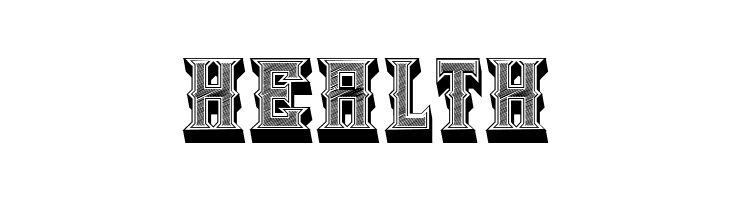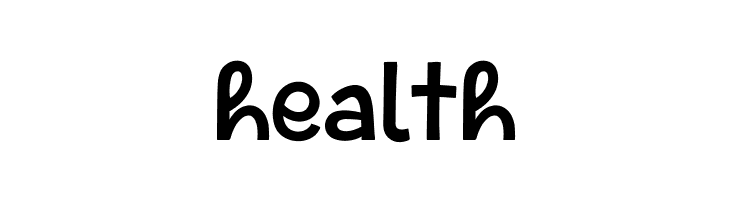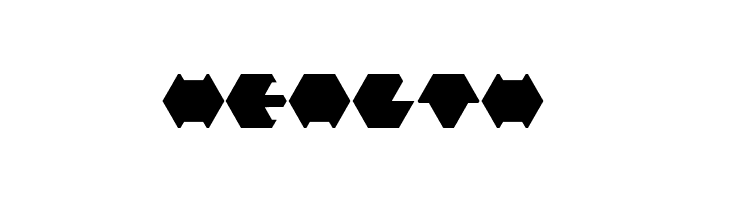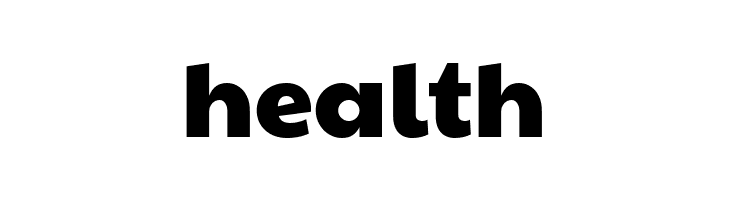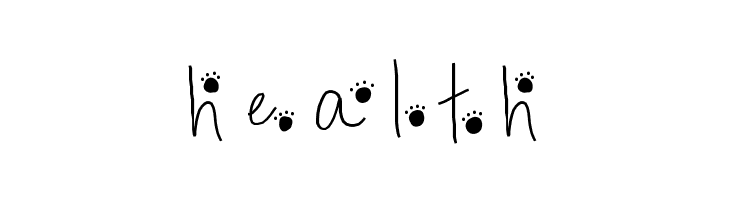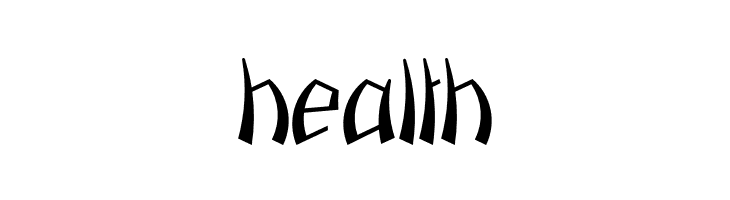
A bold, decorative font with a three-dimensional, detailed design.
A bold, modern sans-serif font with clean lines and geometric structure.
A modern sans-serif font with smooth, rounded edges and uniform stroke width.
A bold, textured font with a distressed, grunge style.
A playful, rounded font with a friendly and whimsical style.
A bold, modern sans-serif font with rounded characters and uniform thickness.
A bold, dynamic font with sharp angles and a tribal aesthetic.